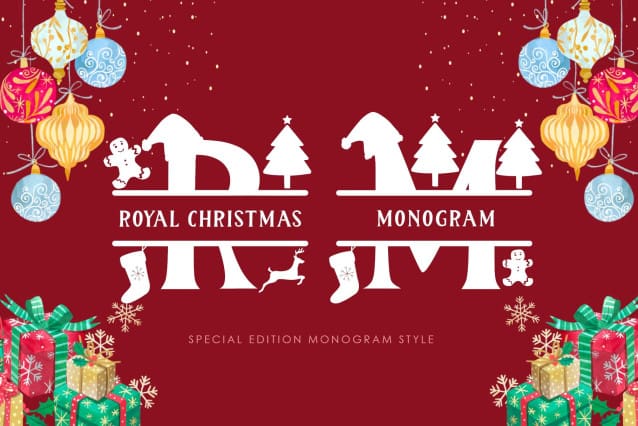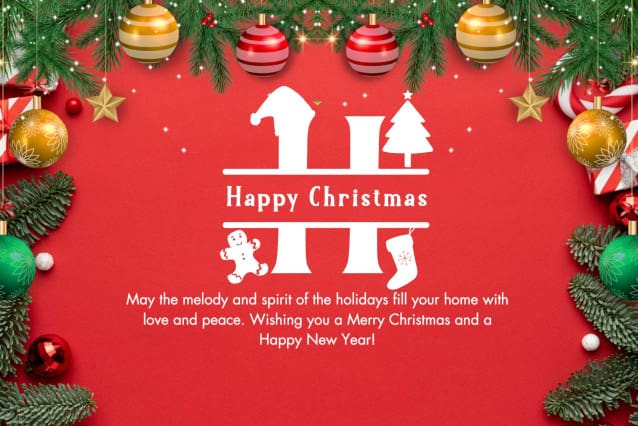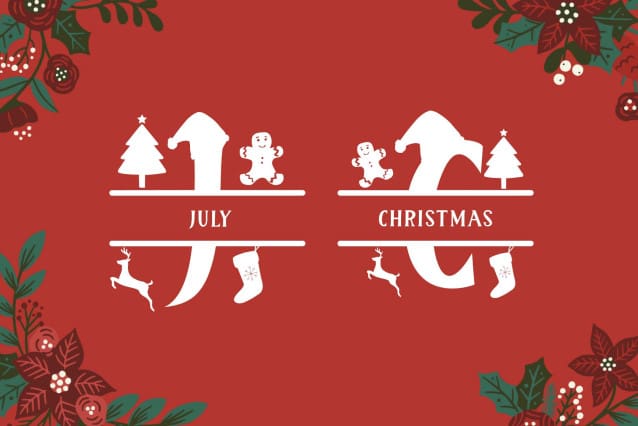
Royal Christmas Monogram Font
Royal Christmas Monogram Font is an elegant and unique monogram font. This font is equipped with monograms, uppercase, lowercase, numerals, punctuations and multilingual support. Very suitable for Christmas, Halloween, fall, autumn, summer, winter, invitations, logos, banners, branding, July Christmas, posters, prints and others.